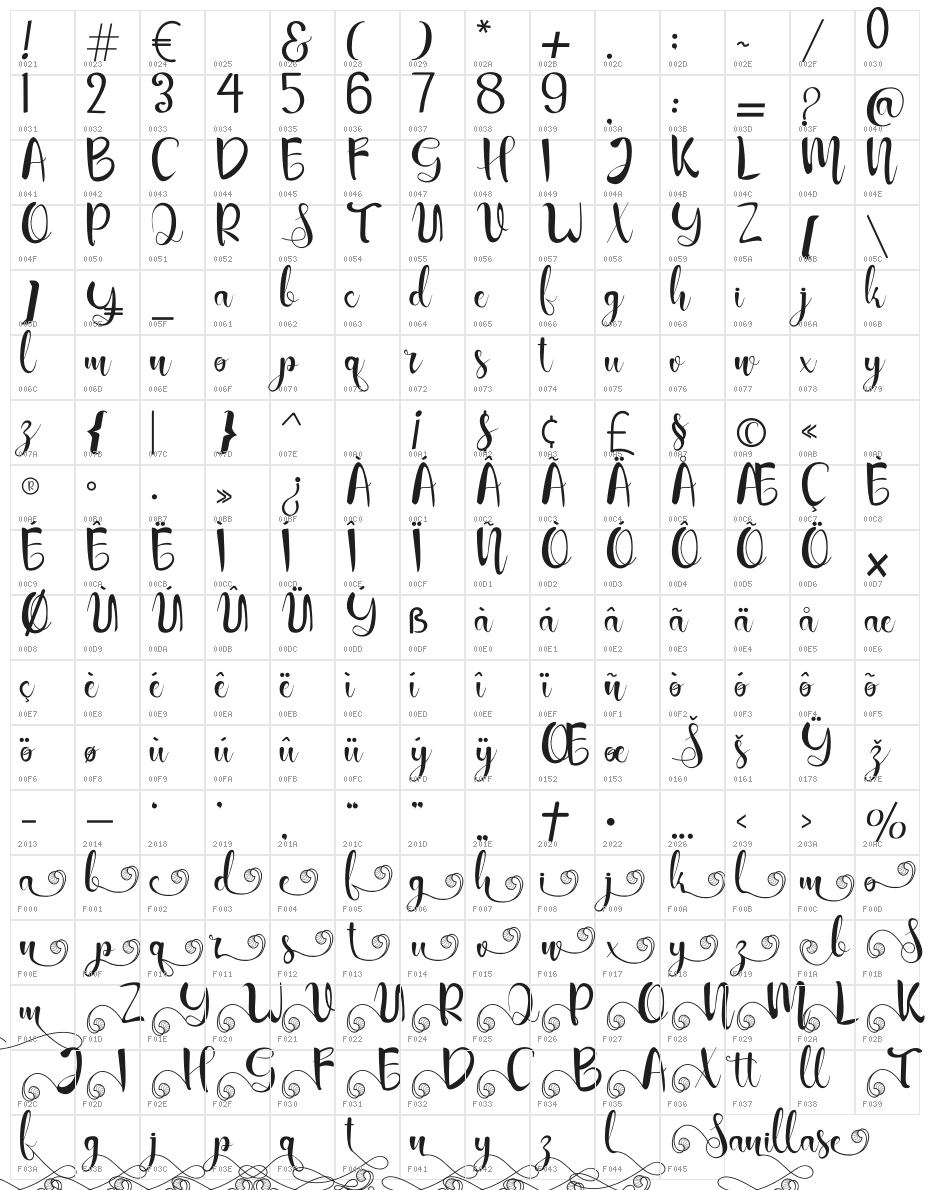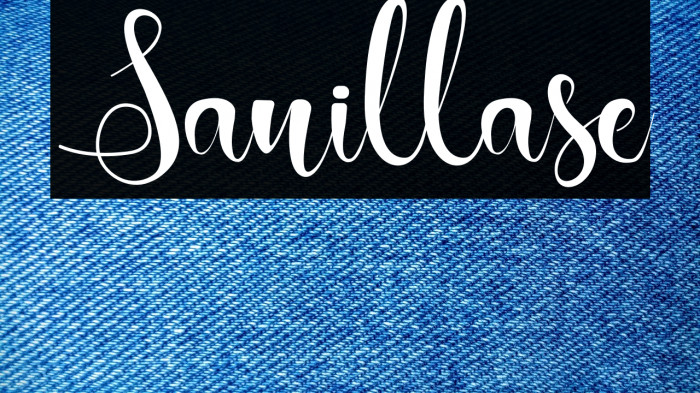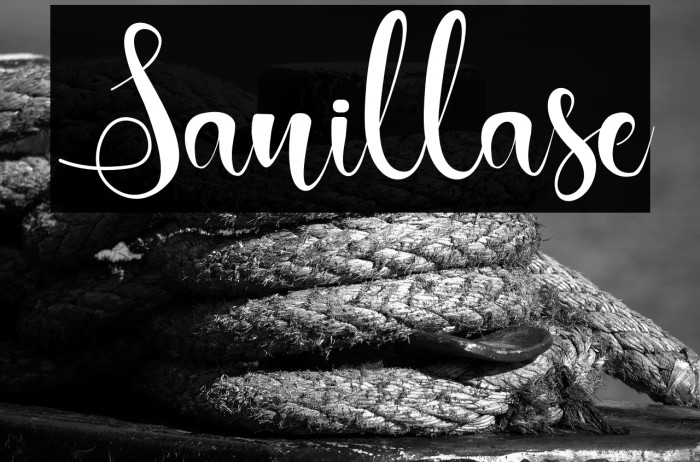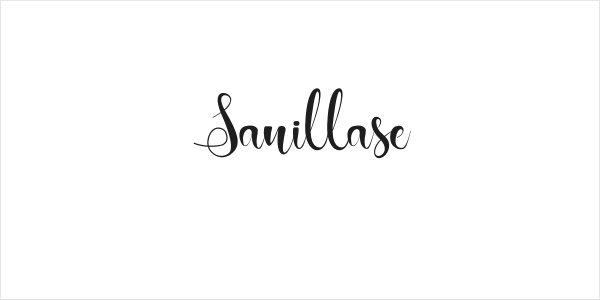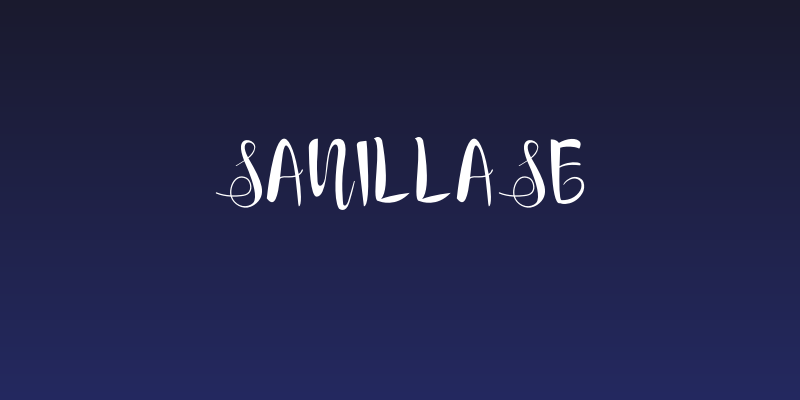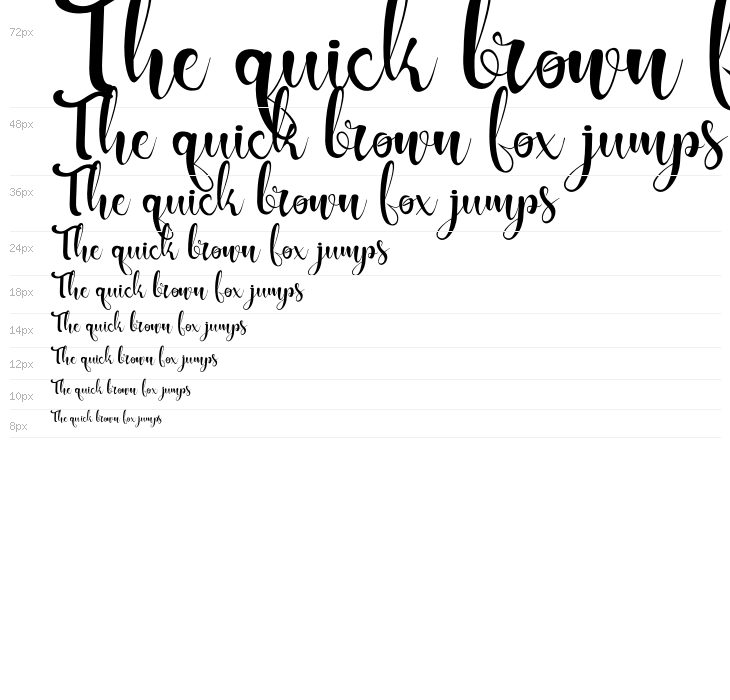
Sanillase Font
Sanillase Description
This font features a playful and elegant script style with a modern twist. The uppercase letters are bold and flowing, with a mix of straight and curved lines that create a dynamic and lively appearance. The lowercase letters maintain a consistent style, offering a smooth and connected look that enhances readability. Numbers are clear and distinct, with a slight playful touch that aligns with the overall aesthetic. Special characters are creatively designed, adding to the font's versatility. The font's unique style makes it suitable for a variety of creative projects, offering a balance between sophistication and fun.